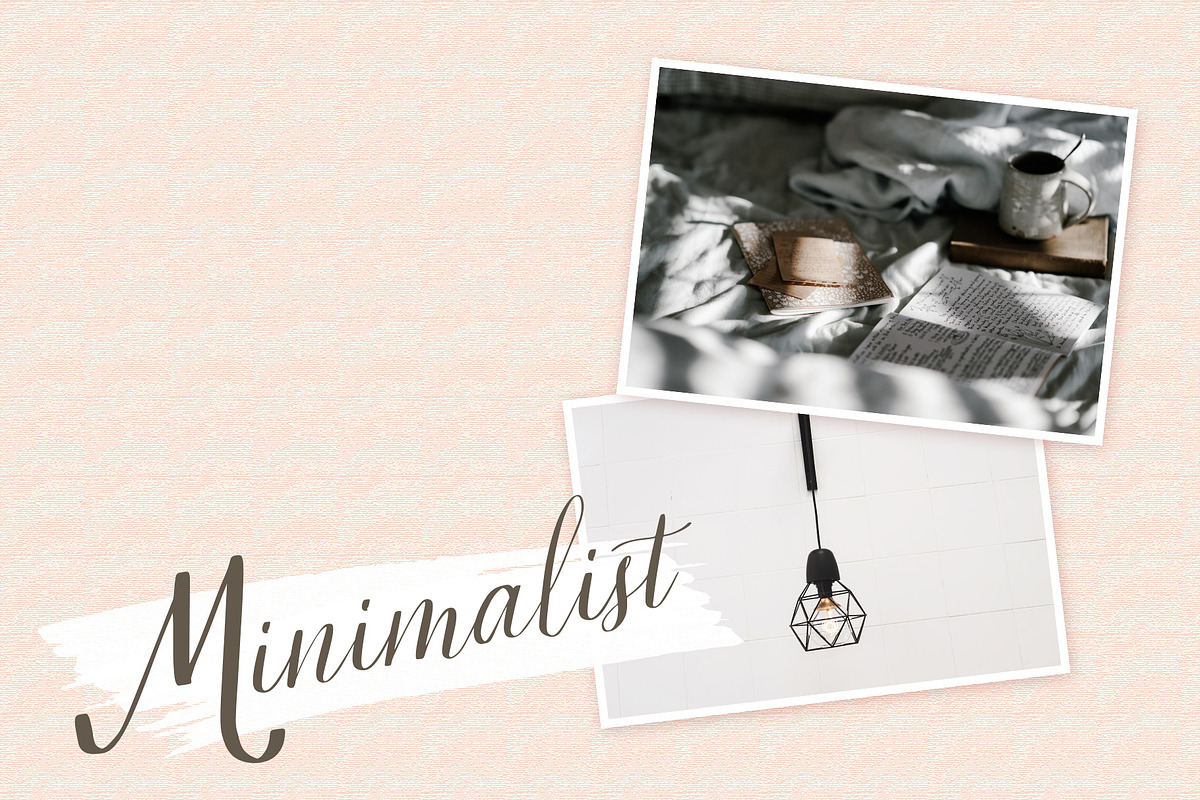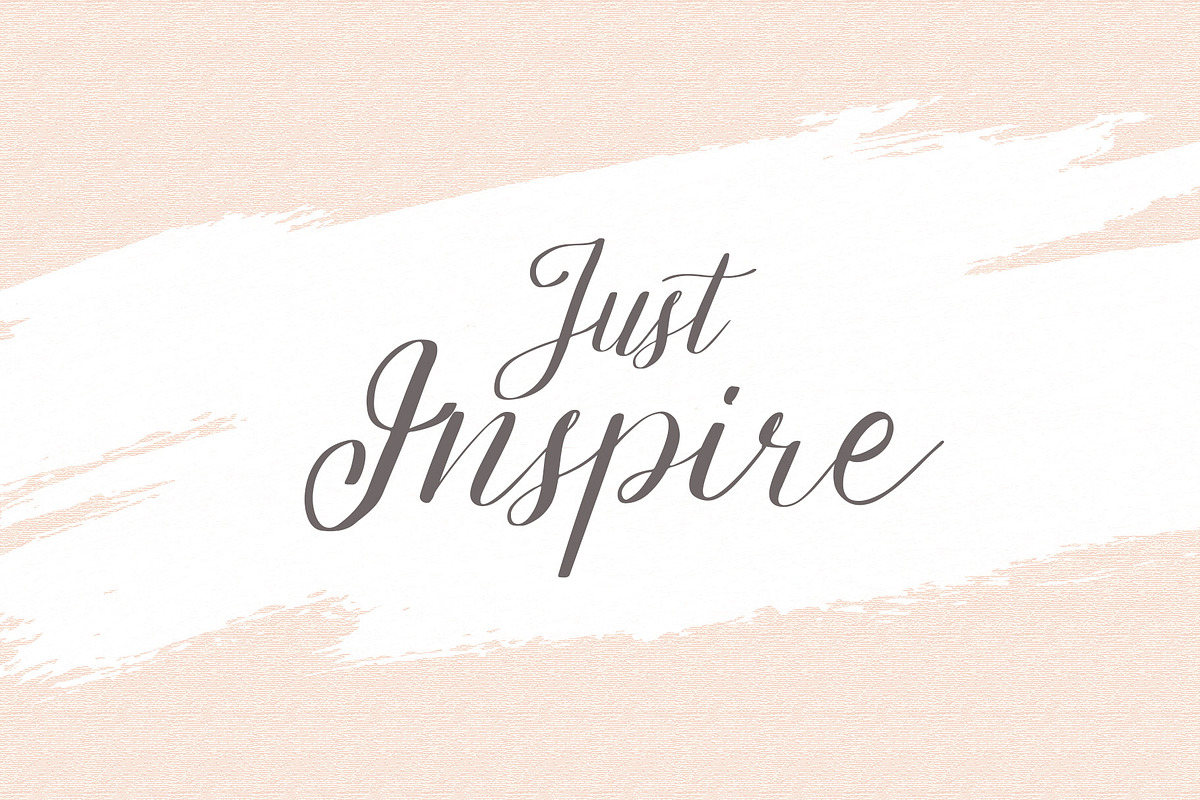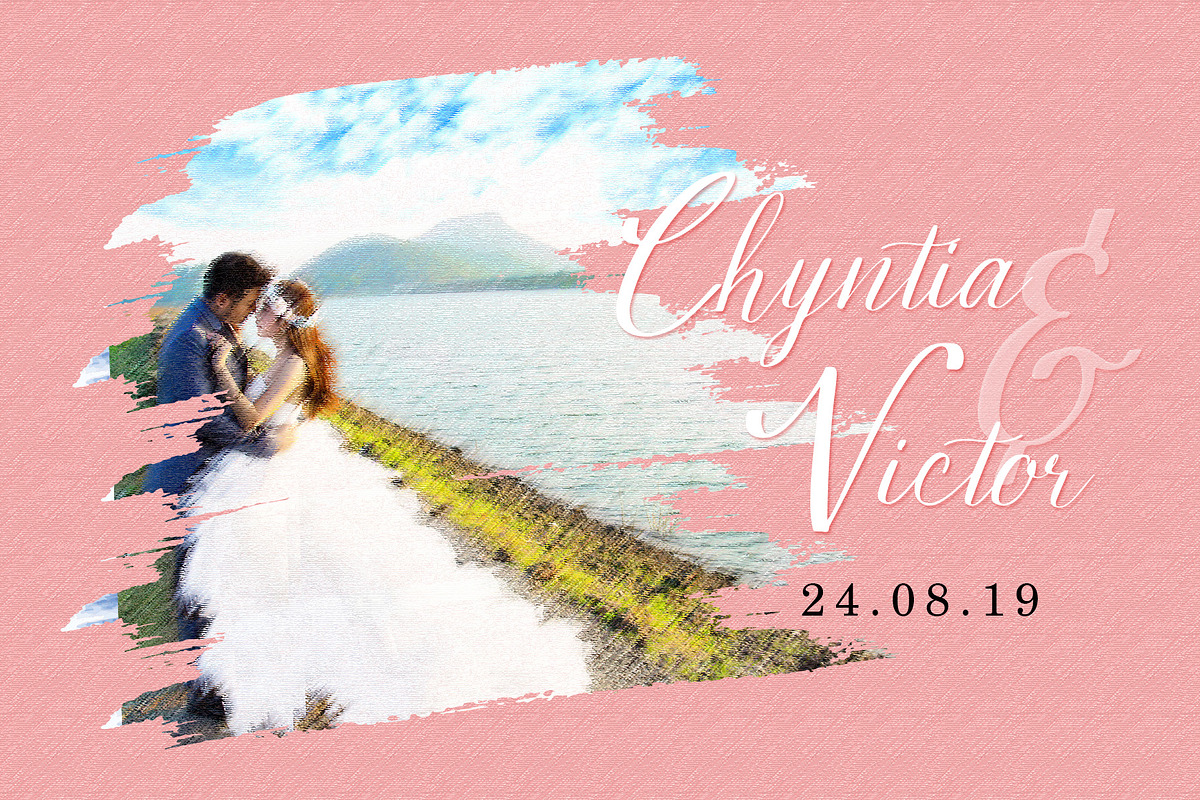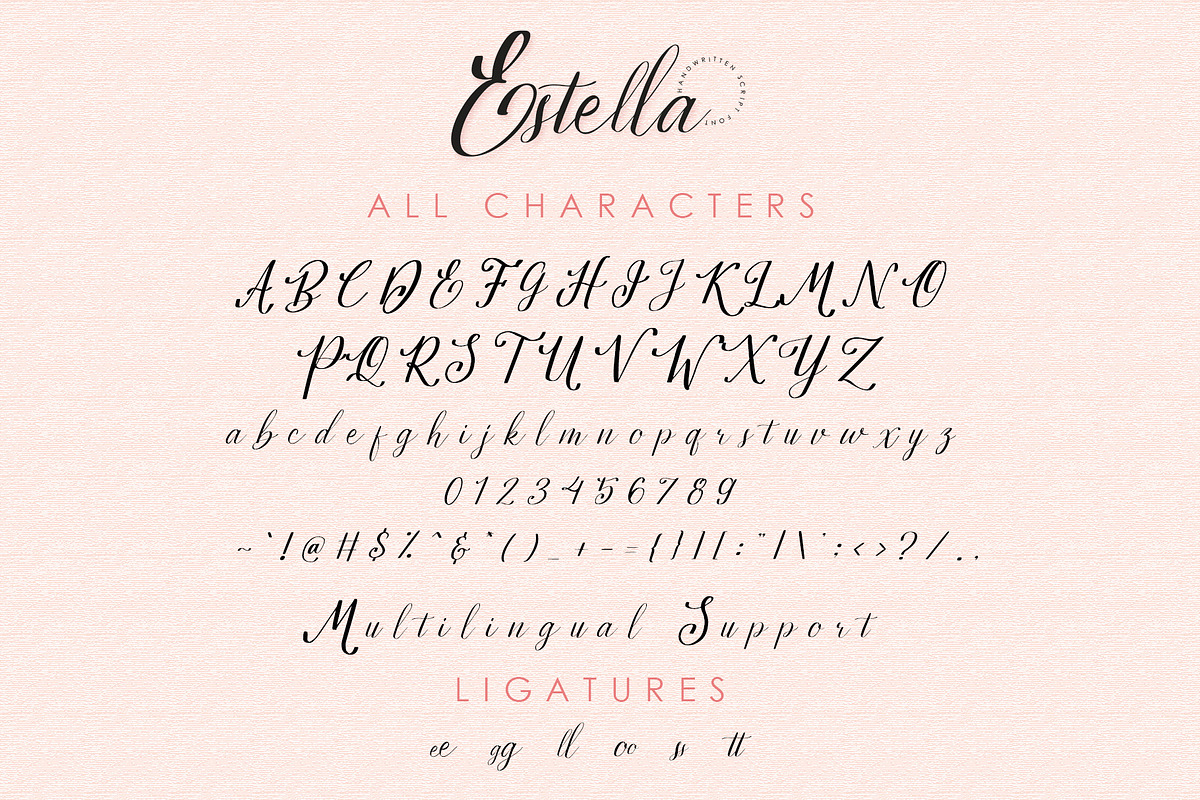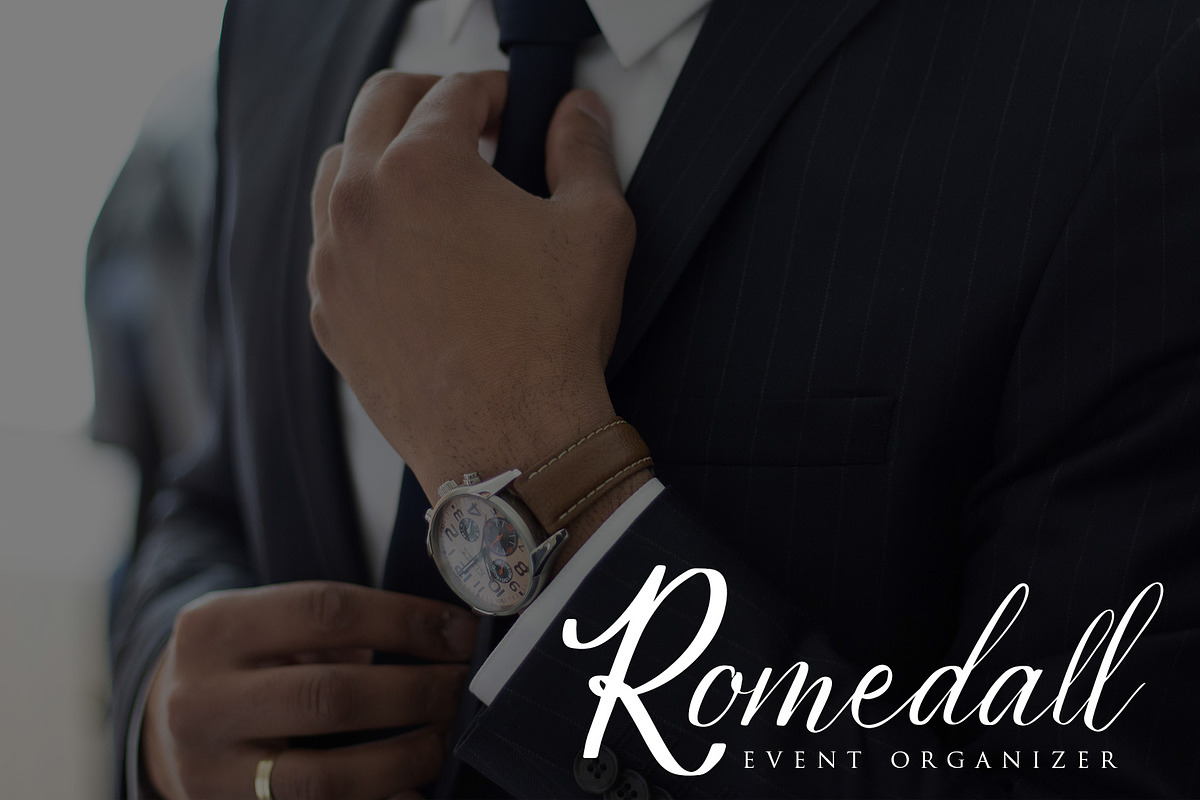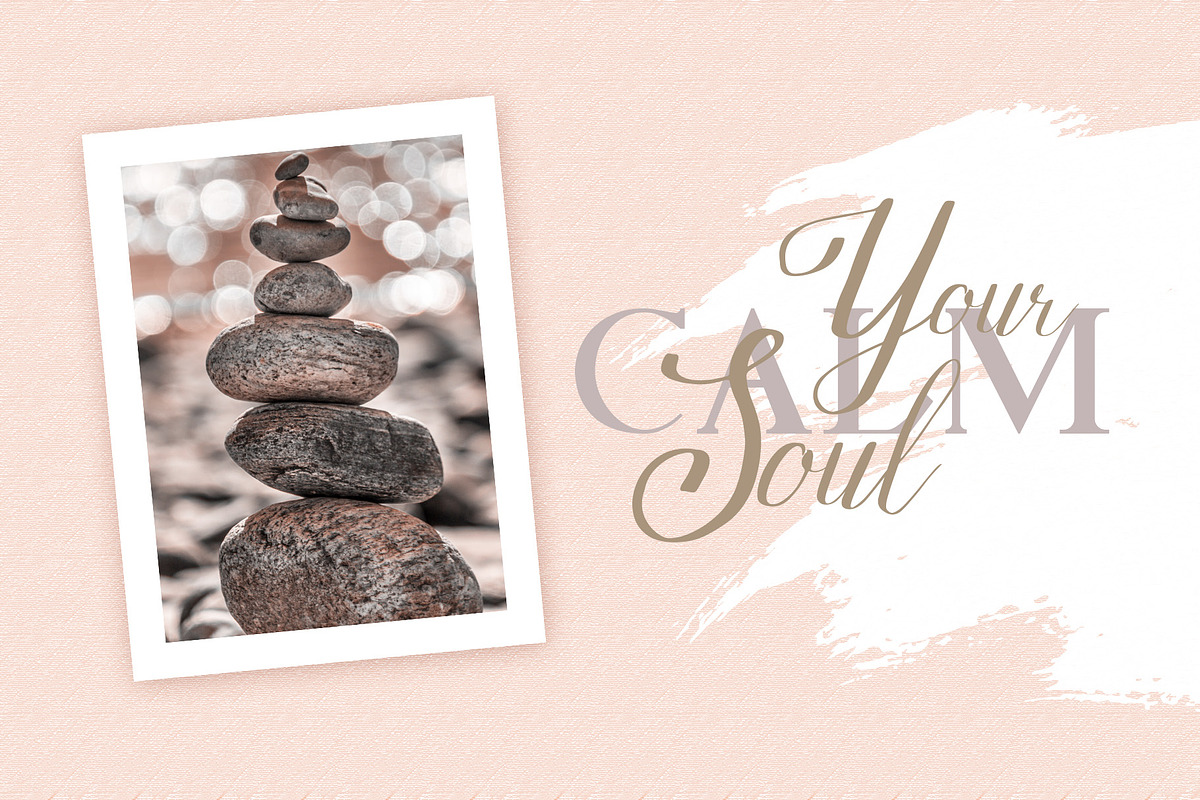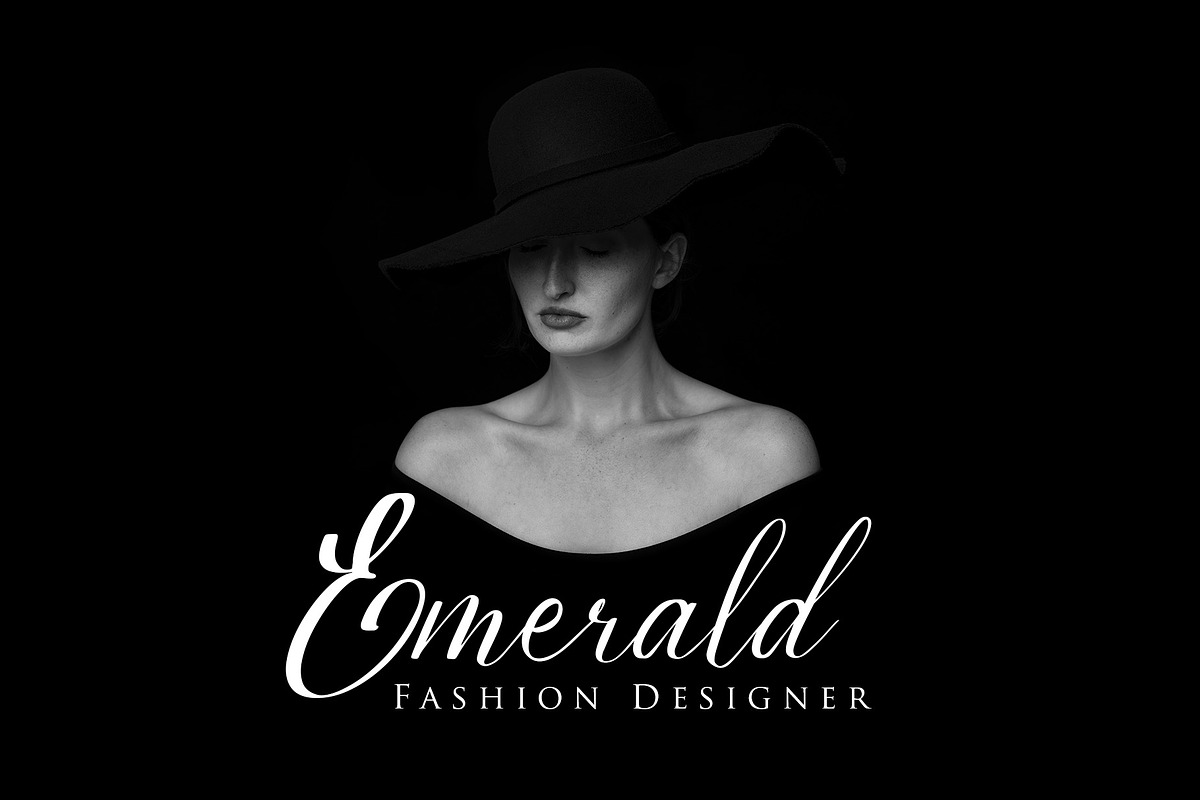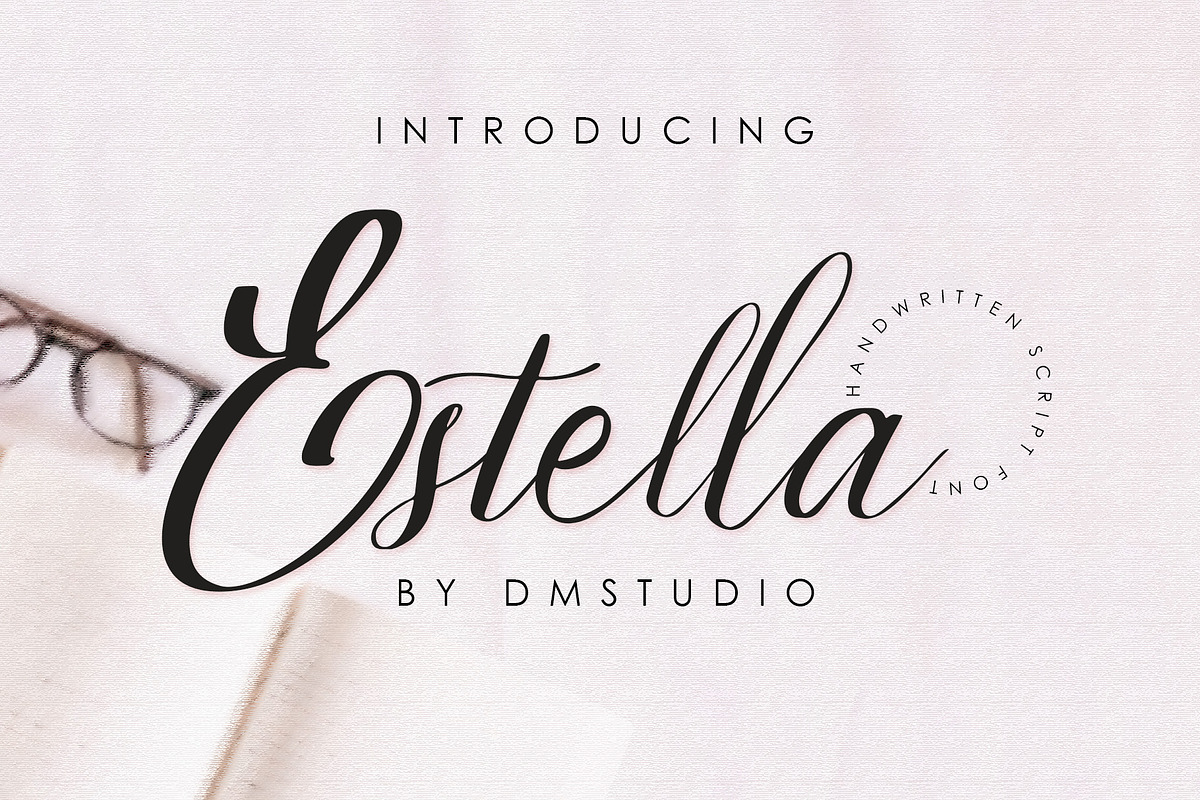
Estella - Handwritten Font
Estella the handwritten script font
Great choice and very easy to use for quotes, wedding card, invitation, website, promotion and the other projects.
Contains uppercase, lowercase, numeric and symbols
Estella - Handwritten Font by Dm Studio fits naturally into Branding, posters, packaging, typography.